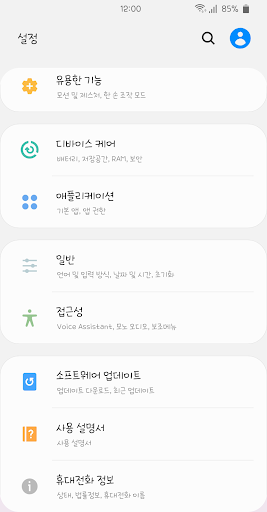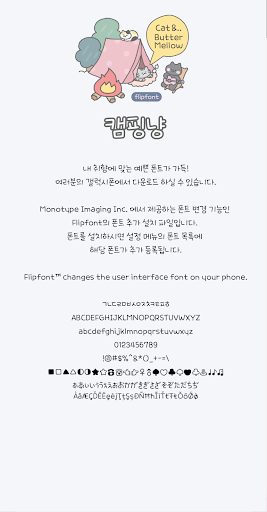
CatCampingCat
CatFont that delivers happiness^^
It's a font made by imagining camping cats. Especially, I added joy to collaboration with Buttermallow, a unique theme company.If you look at the form of the ^^ font, you can see that the cats are sitting round and cute. Theㅇ,ㅎ is a design that resembles a cat and leaves traces of handwriting. It also takes a wide range of shapes such as , and ㅐ,ㅒ to express cutely and leisurely. Overall, the style is slightly tilted to the left, and please look at the funny slits of theㅂ,ㅍ.♡